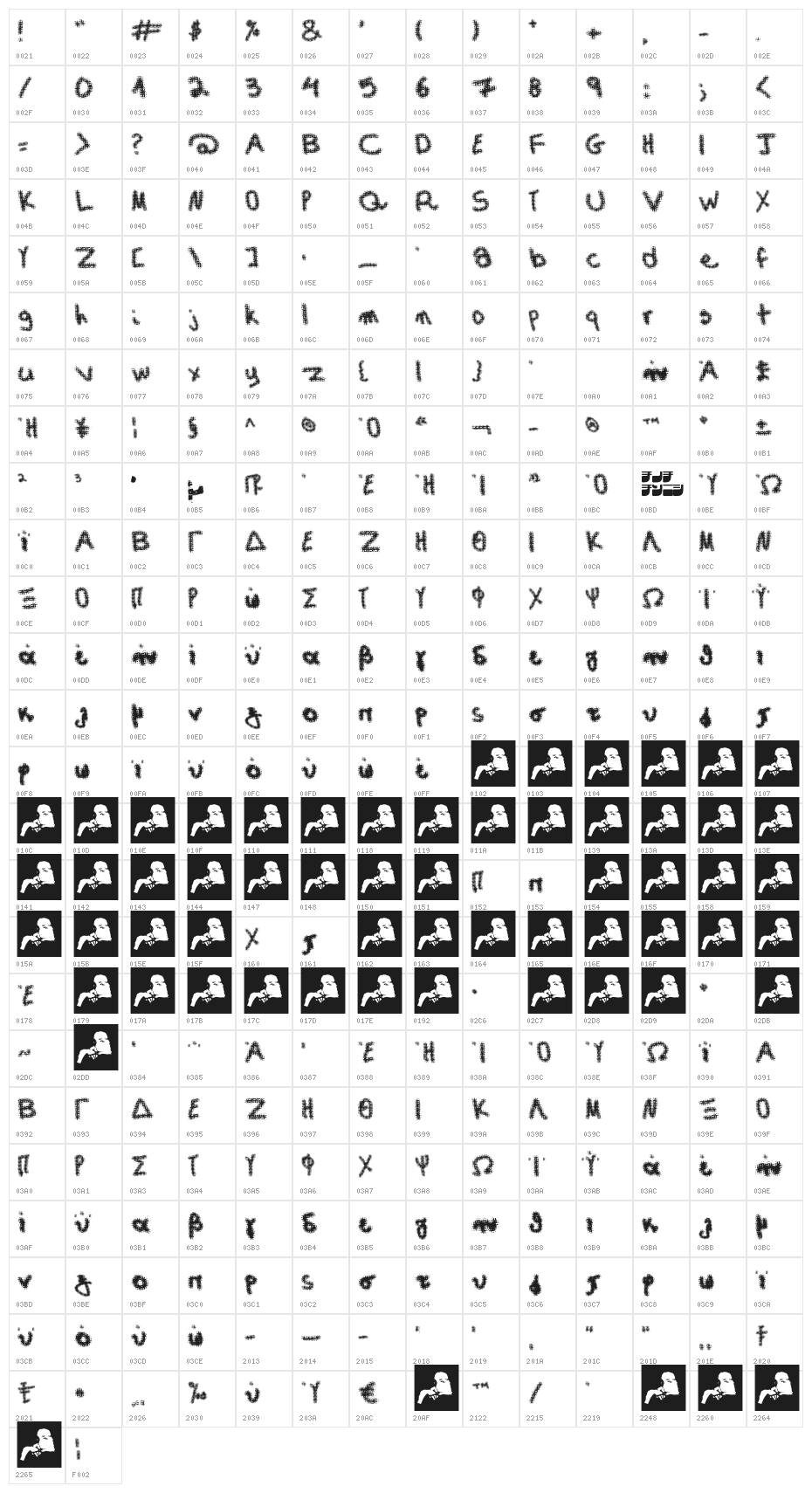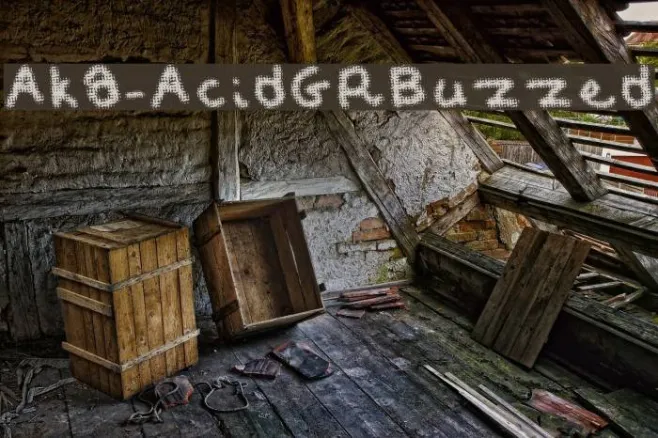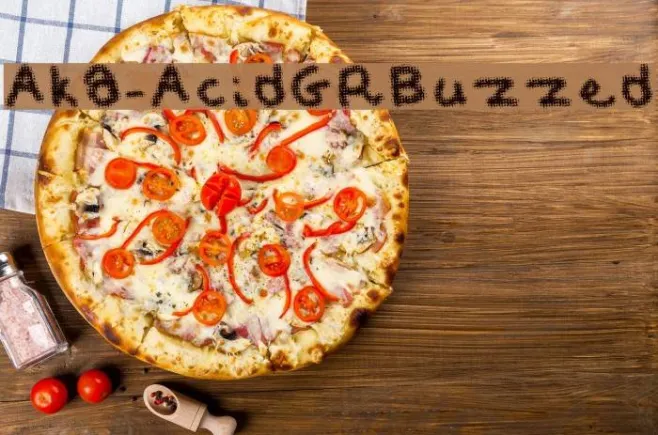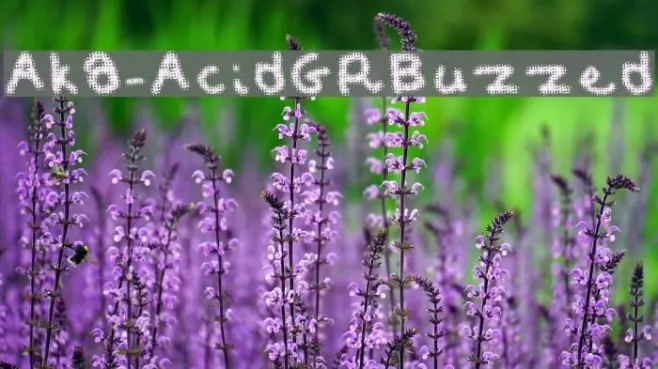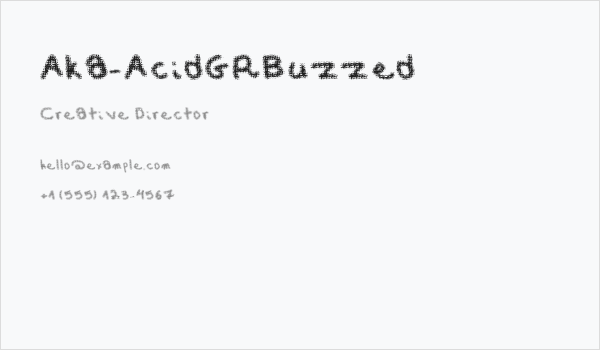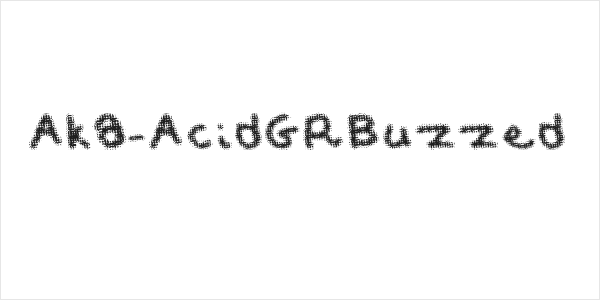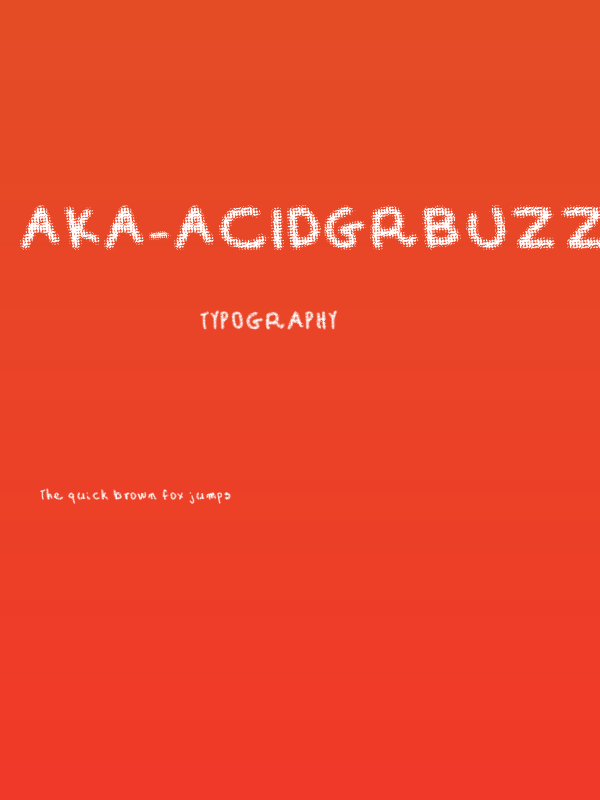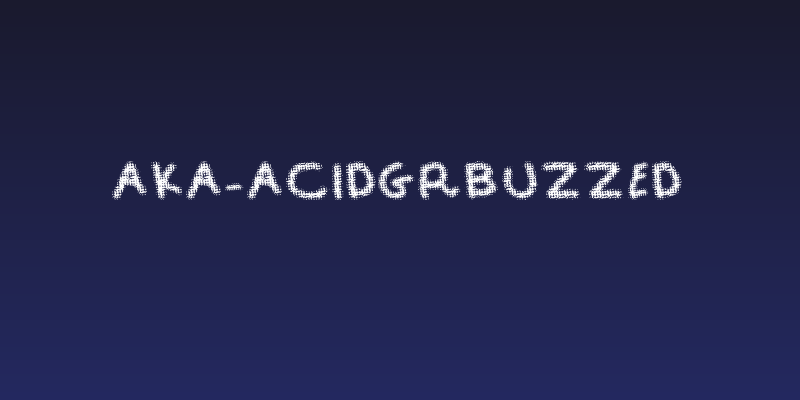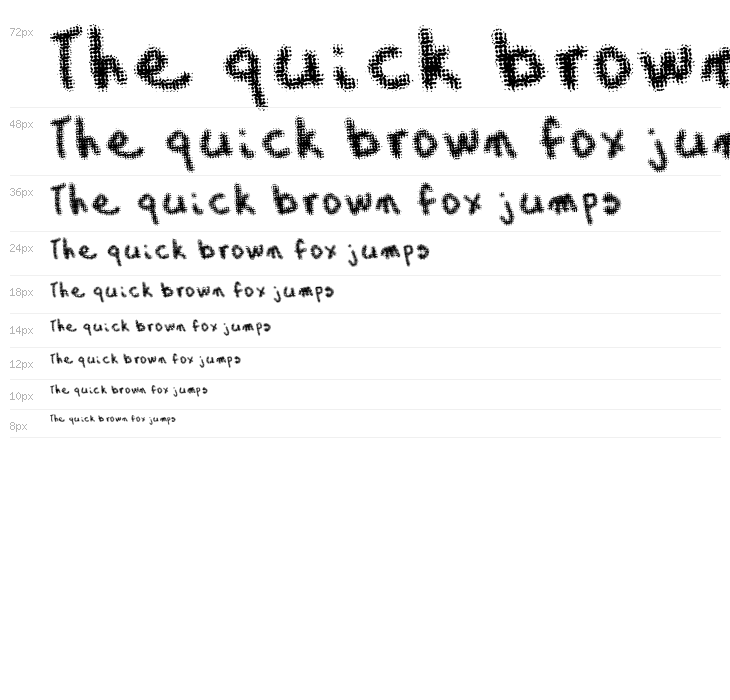
Aka-AcidGRBuzzed Font
Aka-AcidGRBuzzed Description
This font features a unique, textured appearance with a rough, pixelated edge that gives it a dynamic and energetic feel. The characters are bold and slightly irregular, adding a sense of movement and spontaneity. The uppercase and lowercase letters maintain a consistent style, with rounded edges and a playful, informal look. Numbers and special characters follow the same design, ensuring a cohesive appearance across all elements. The font's distinctive style makes it stand out, perfect for projects that require a bold, eye-catching typeface.
| Proposed Projects | Ideal for posters, album covers, graffiti art, and digital media projects that need a bold, artistic touch. |